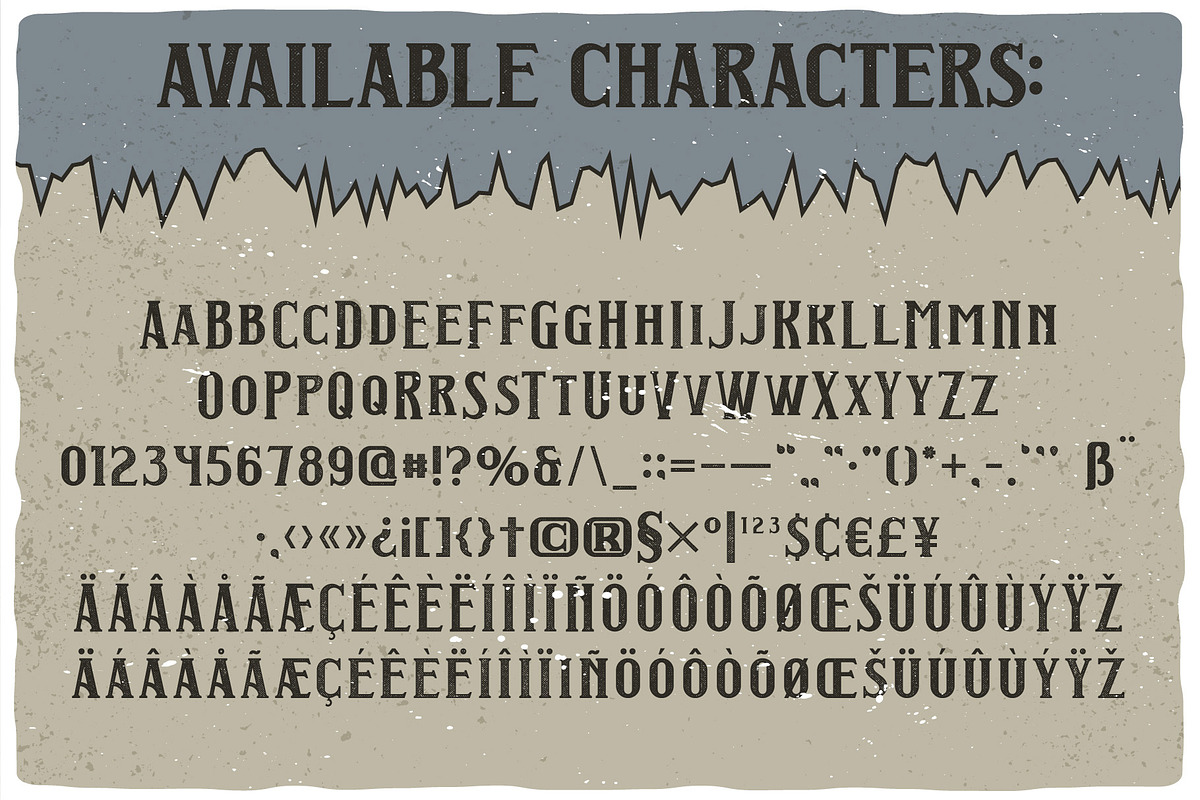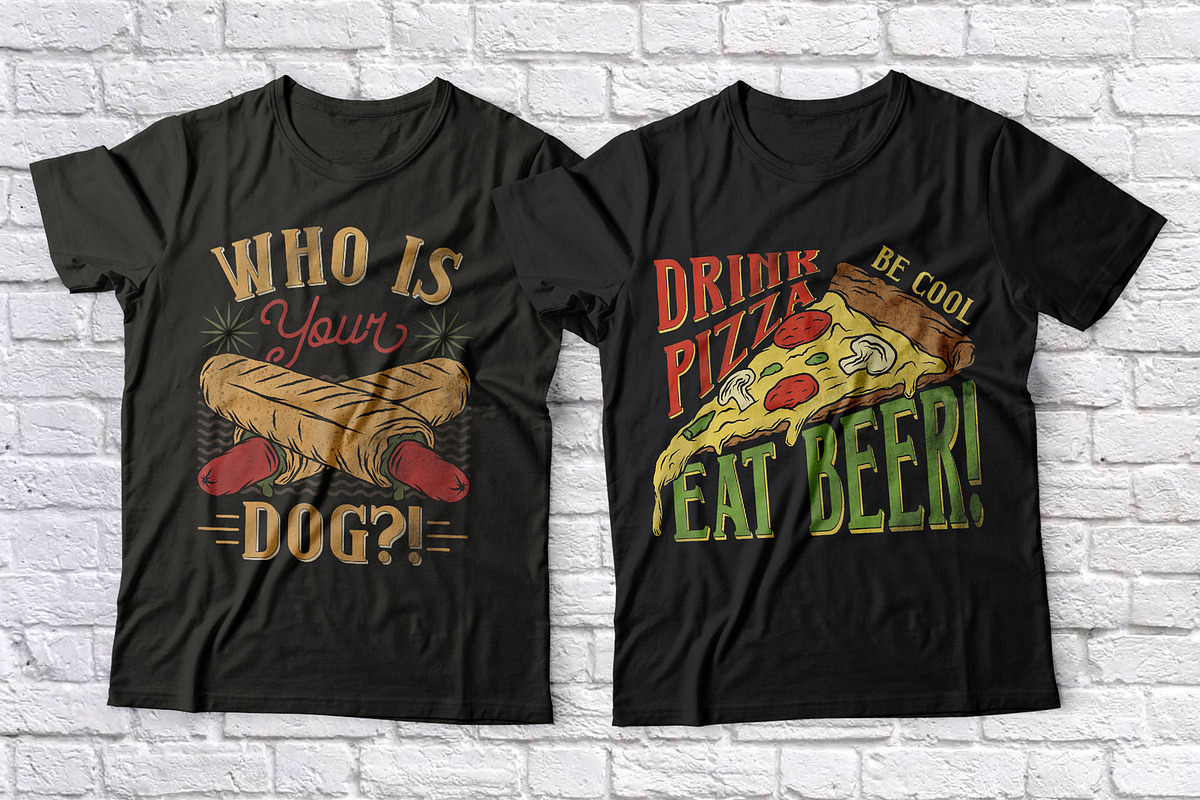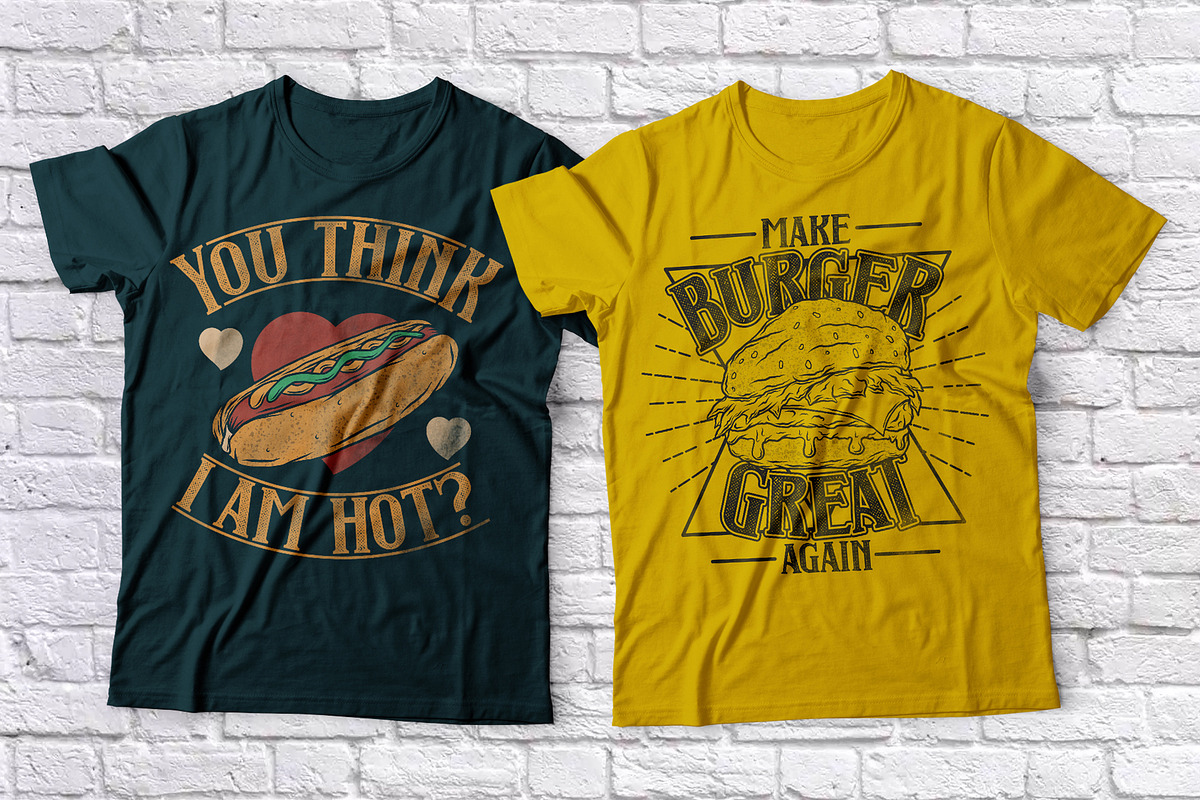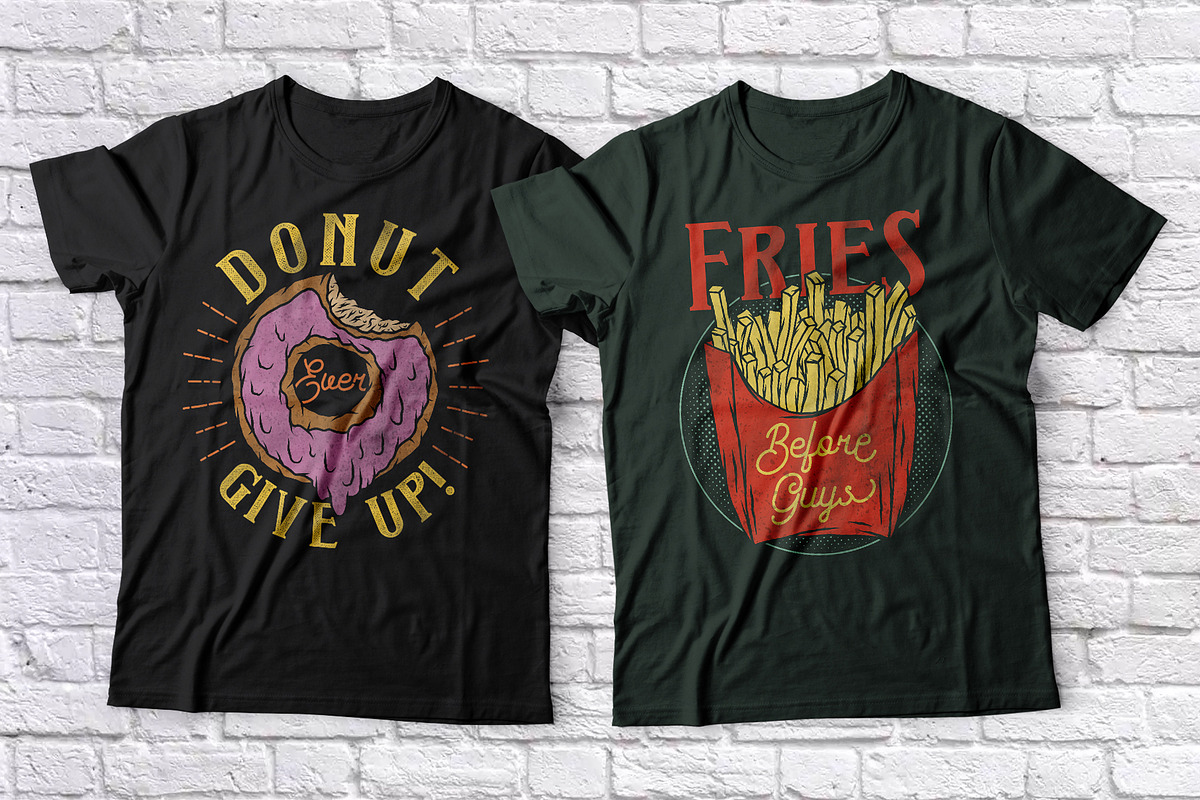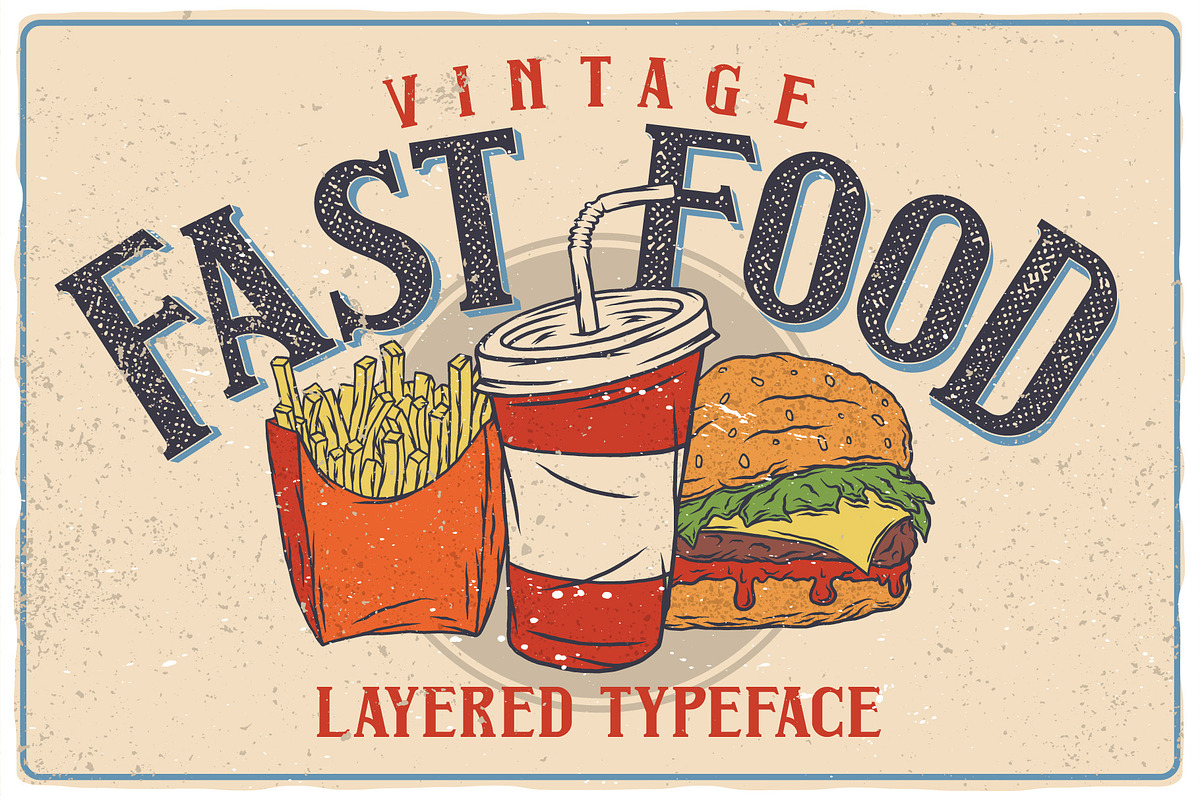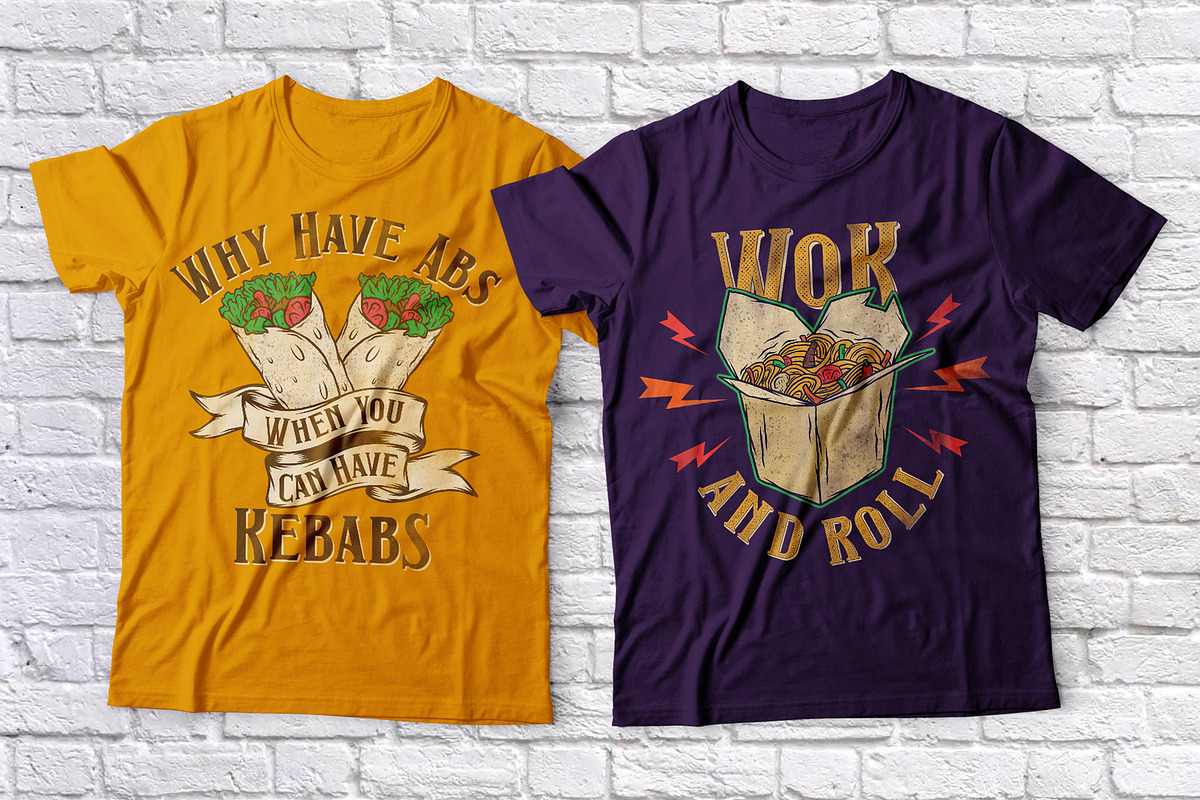
Fast Food Layered Typeface
Introducing a vintage label font named Fast Food. This strong typeface is perfect for lettering on vintage style posters, t-shirts, greeting cards, logo etc. This set contains also illustrations of burger, pizza, wok, hot dogs, donut, fries and drink cup. All illustrations you will get isolated, on t-shirt designs with editable text and on two seamless patterns - color and monochrome.